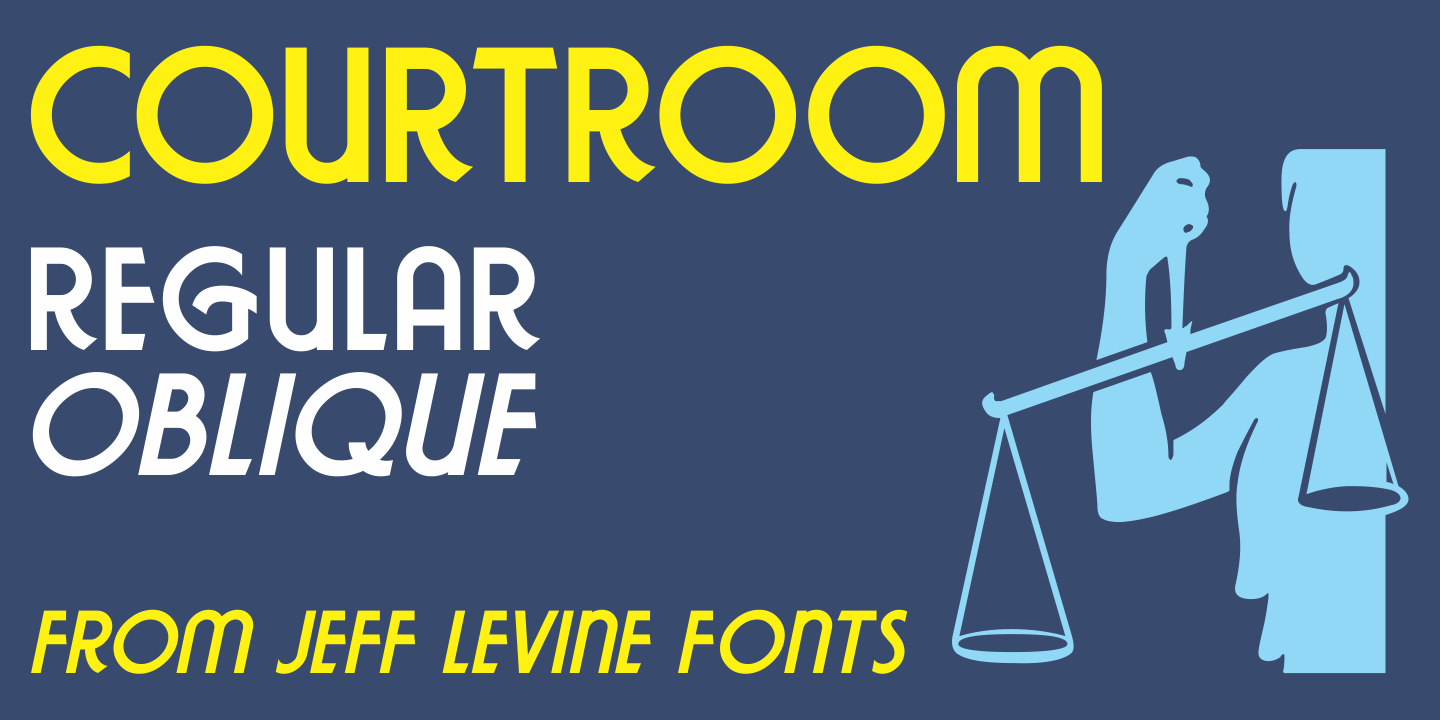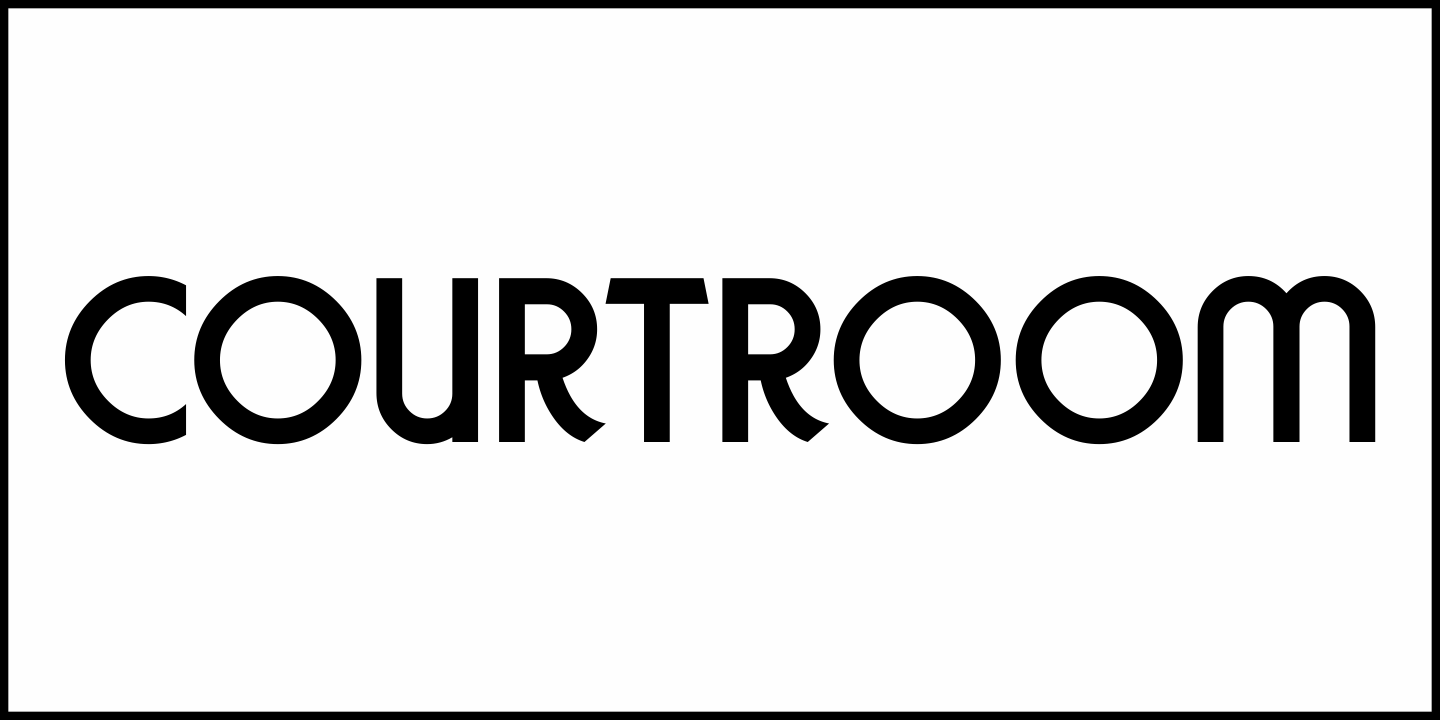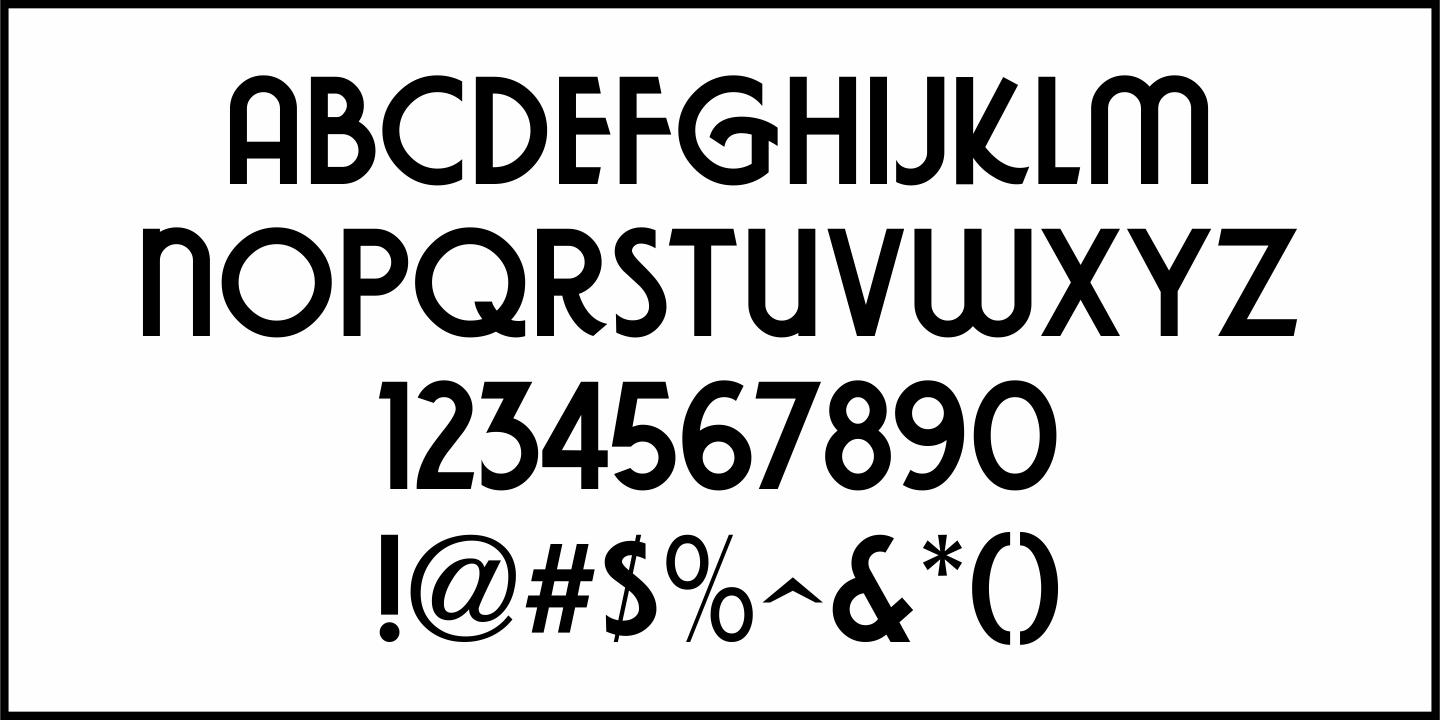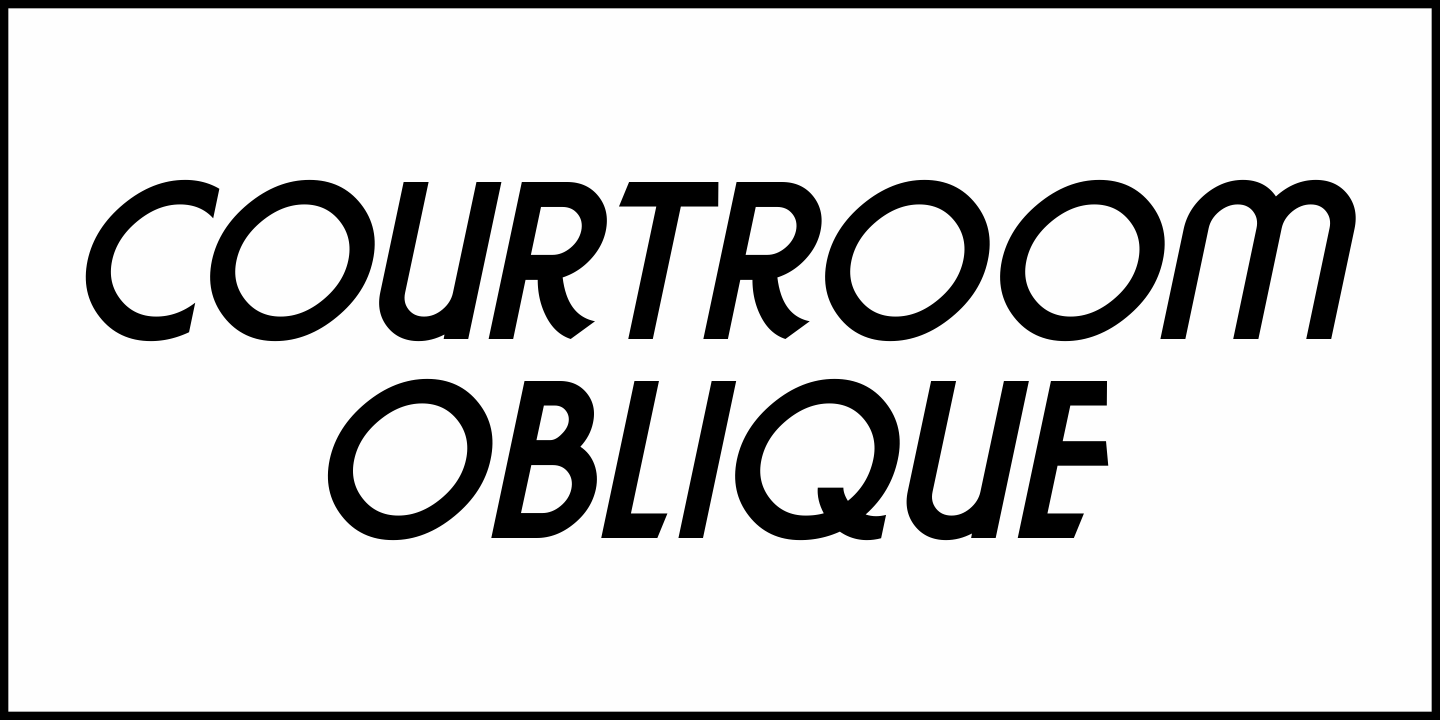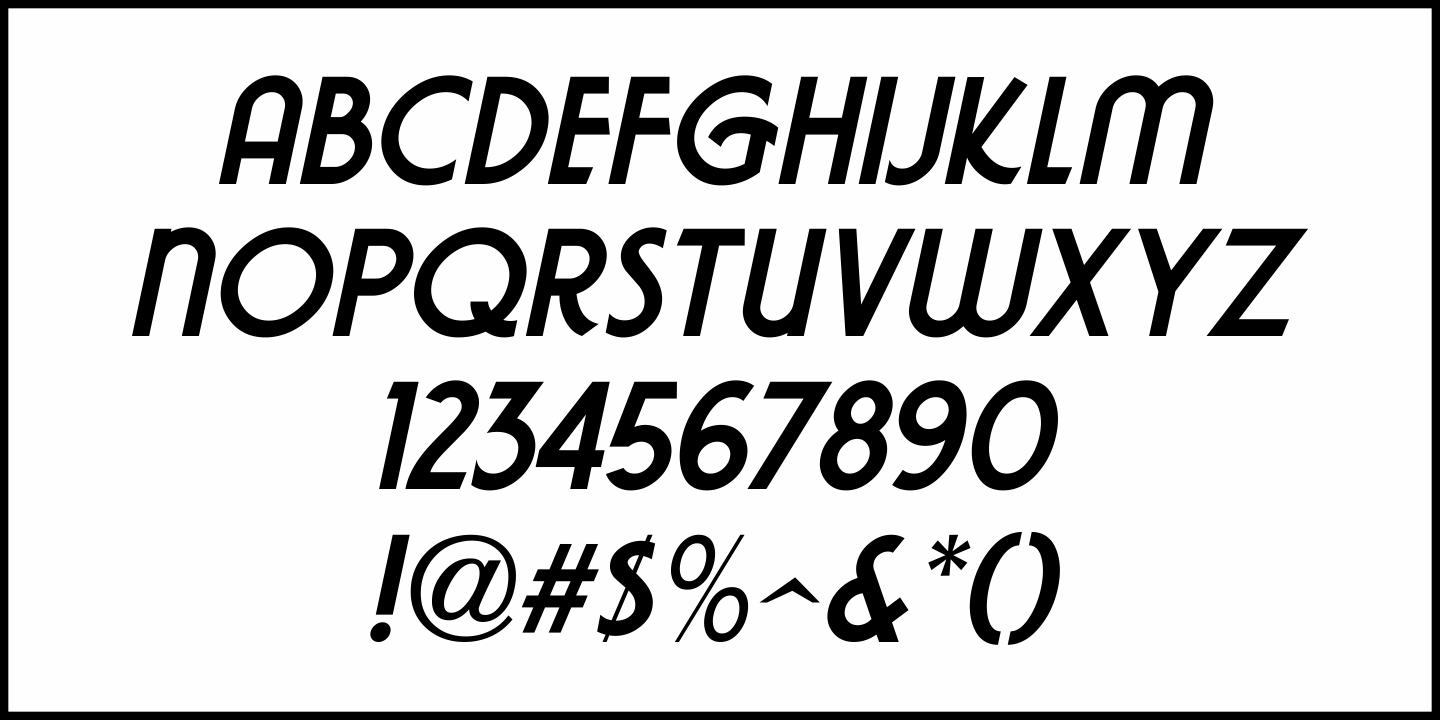
Courtroom
Erle Stanley Gardner’s beloved lawyer “Perry Mason” first appeared on screen in a series of six films with Warren Williams starring in four of them. The hand lettered opening title for 1935’s “The Case of the Lucky Legs” is a classic Art Deco sans serif design, and is now available as Courtroom JNL in both regular and oblique versions.
Courtroom JNL Regular by Jeff Levine Fonts